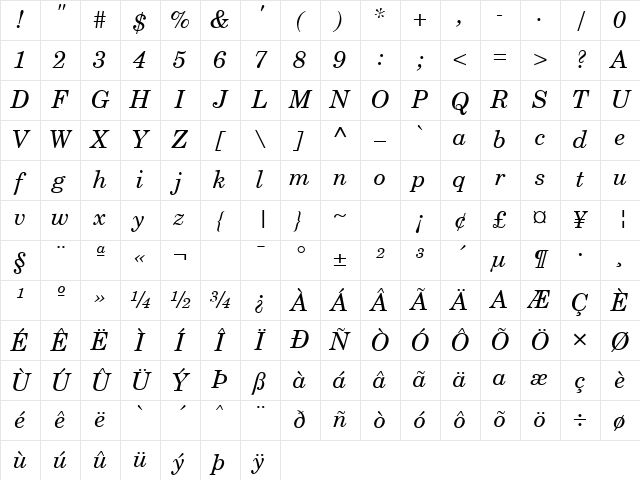
New Cent Schoolbook is a composed and adaptable typeface that performs quietly and consistently across a wide range of design contexts. The slanted form adds forward momentum and visual energy.
Pro Tip: Use New Cent Schoolbook for emphasis, pull quotes, and subheadings where its slanted energy can add rhythm to the layout.